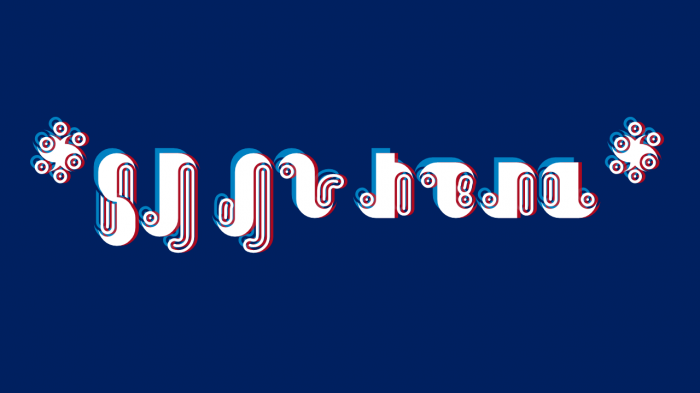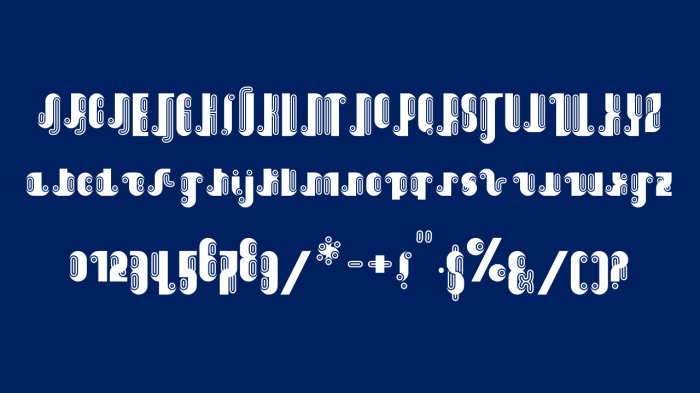
This is quality material right here
Yup, there is definitely something here, its not quite just yet, and I can't really explain what for me personally is still missing to solidify this into a true typeface. Neither can I get around the very strongly present 'architarazized' characteristics of this work. Which could be concidered a achievement in its own right since architaraz is one of FontStruct's OG's, and a highly skilled and original designer.
I thought it was going to take forever but nope, well if it took a little while, it took a day and a half ._.
Inspired in: KD Pempo and Soulpatch ( this fonts are very cool ;)
The amalgamation of KD Pempo and Soulpatch. And nice oldstyle numerals…
this font is a "KD Pempo Script" :)
Wow, this is incredible.
Pretty cool.